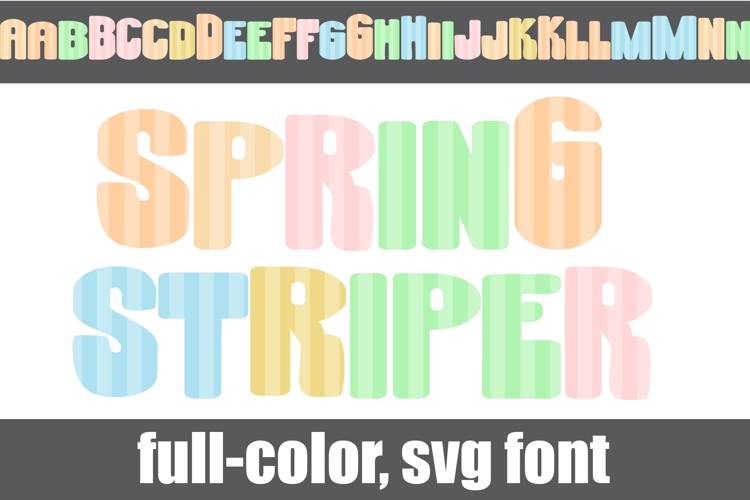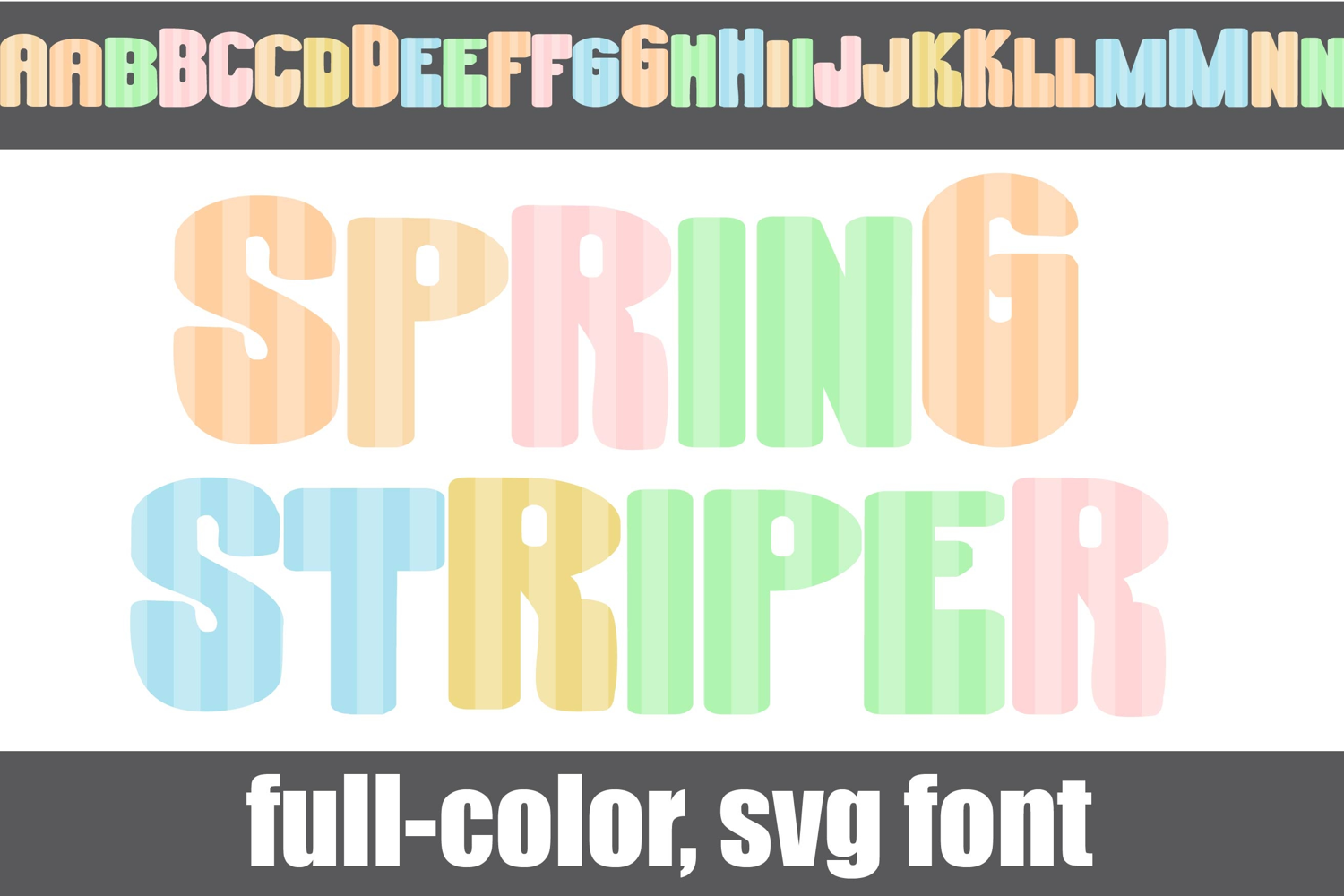
Spring Striper Color Font
This full-color, sans serif font in springy palette. There is an alt case of additional colors of each letter that you can access through your system's character map.